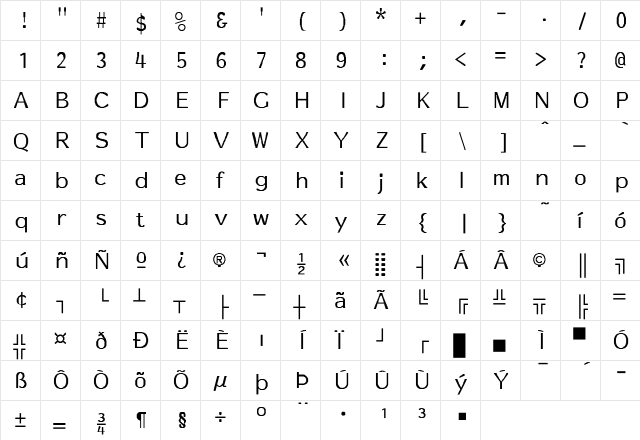
Sagin-Normal Regular
Sagin-Normal offers clean, dependable letterforms without strong stylistic allegiance, making it a practical choice for designers who need flexibility.